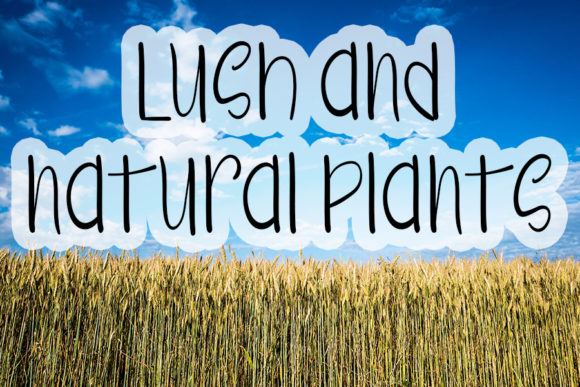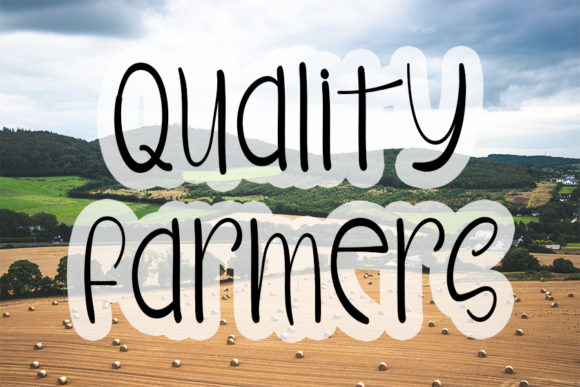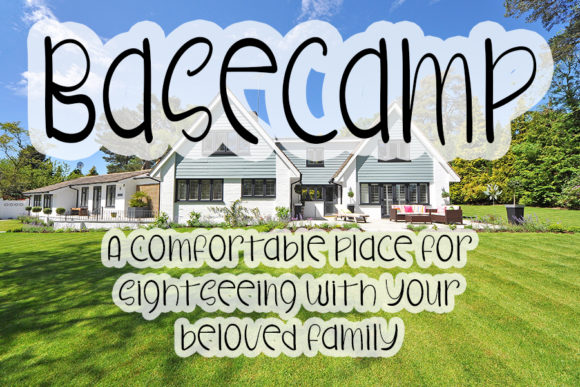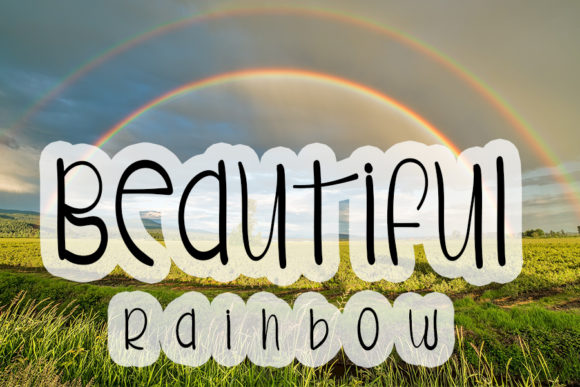
Discover the Charm of Farmhouse Font: A Simple yet Quirky Handwritten Delight
Are you a designer, crafter, or DIY enthusiast looking for a font that embodies the warmth and character of a rustic farmhouse? Look no further than the Farmhouse Font, a simple yet quirky handwritten font that’s taking the design world by storm. With its wide and gorgeous letters, this font is sure to add a touch of originality and charm to any project.
The Essence of Farmhouse Font
Farmhouse Font is a beautifully crafted handwritten font that’s inspired by the classic signs and typography of rural America. Its unique blend of simplicity and quirkiness makes it perfect for a wide range of design applications, from rustic home decor and wedding stationery to craft labels and digital graphics.
One of the standout features of Farmhouse Font is its wide and generous lettering style. Each letter is carefully crafted to be distinctly recognizable, with a charming irregularity that adds to its handmade appeal. Whether you’re looking to create a vintage-inspired logo, a set of charming labels, or a beautiful piece of typographic art, Farmhouse Font is the perfect choice.
What Makes Farmhouse Font So Special?
So, what sets Farmhouse Font apart from other fonts on the market? Here are just a few reasons why designers and crafters are falling in love with this delightful font:
- Unique Character: Farmhouse Font has a distinct personality that’s hard to find in more traditional fonts. Its quirky, handwritten style adds a touch of whimsy and charm to any design.
- Easy to Read: Despite its rustic charm, Farmhouse Font is surprisingly easy to read, making it perfect for use in body text, headings, and titles.
- Highly Versatile: Farmhouse Font can be used in a wide range of design applications, from digital graphics and social media posts to print materials and handmade crafts.
- Hand-Drawn with Love: Each letter in Farmhouse Font is carefully hand-drawn with love and attention to detail, giving it a truly unique and authentic feel.
How to Use Farmhouse Font in Your Designs
Ready to get creative with Farmhouse Font? Here are a few ideas to get you started:
- Rustic Home Decor: Use Farmhouse Font to create charming signs, labels, and decorations for your home, such as welcome signs, wall art, and kitchen decor.
- Wedding Stationery: Add a touch of rustic charm to your wedding stationery, including invitations, save-the-dates, and thank-you cards.
- Craft Labels: Use Farmhouse Font to create adorable labels for your handmade crafts, such as soap, candles, and jewelry.
- Digital Graphics: Incorporate Farmhouse Font into your digital graphics, including social media posts, blog headers, and email newsletters.
Farmhouse Font is a delightful handwritten font that’s sure to capture the hearts of designers, crafters, and DIY enthusiasts alike. With its unique blend of simplicity and quirkiness, this font is perfect for anyone looking to add a touch of rustic charm to their designs. Whether you’re creating rustic home decor, wedding stationery, craft labels, or digital graphics, Farmhouse Font is the perfect choice. So why wait? Download Farmhouse Font today and start creating your own unique and charming designs!